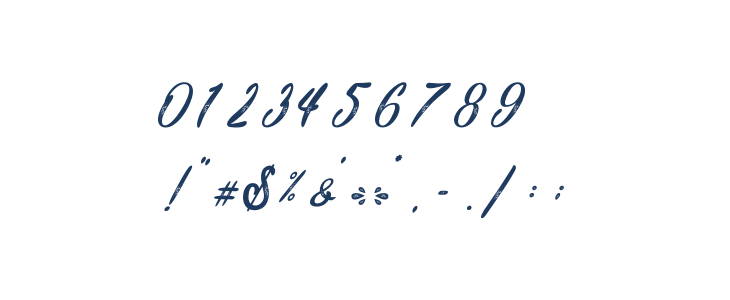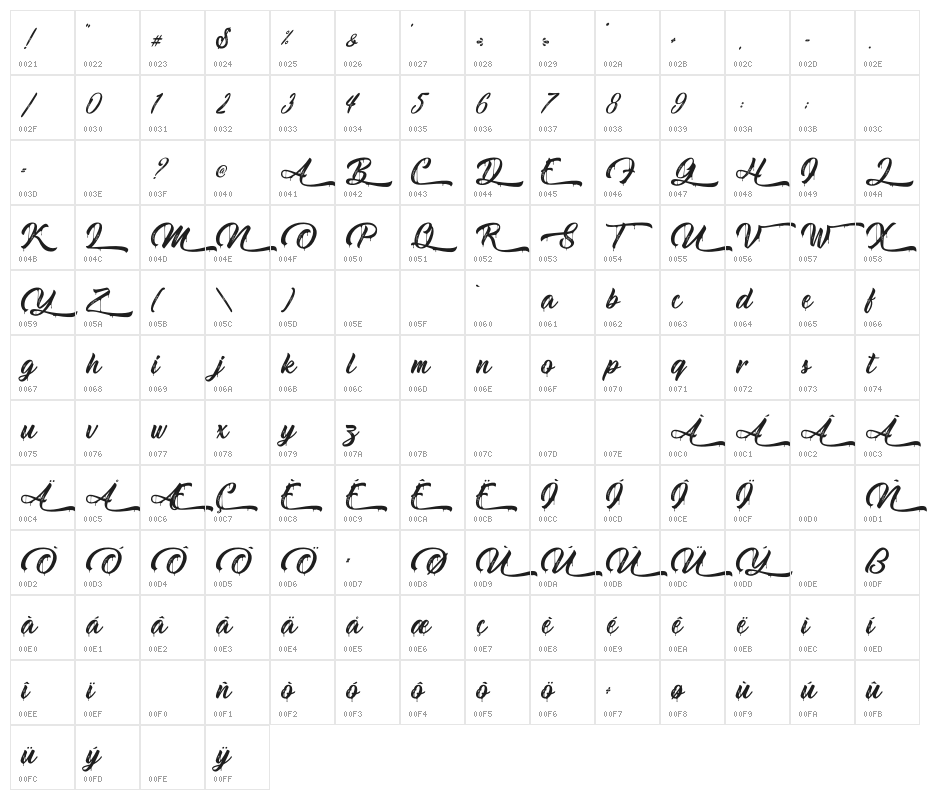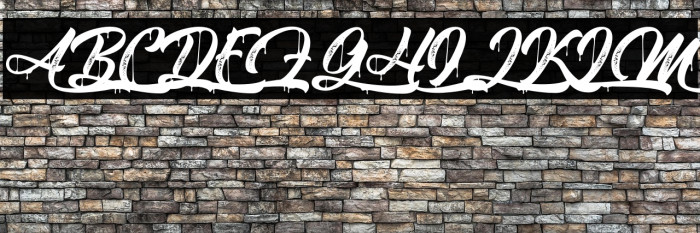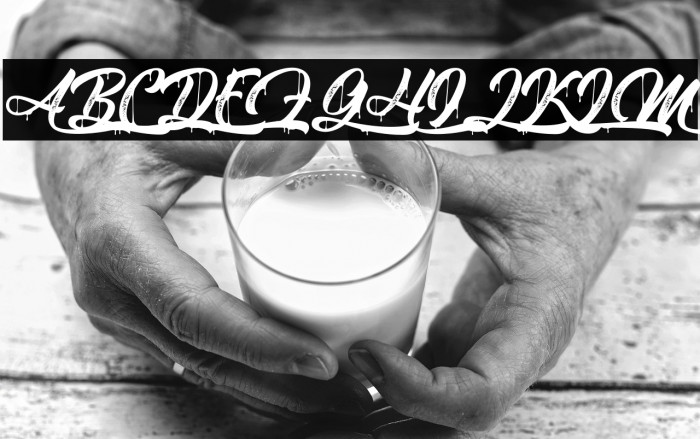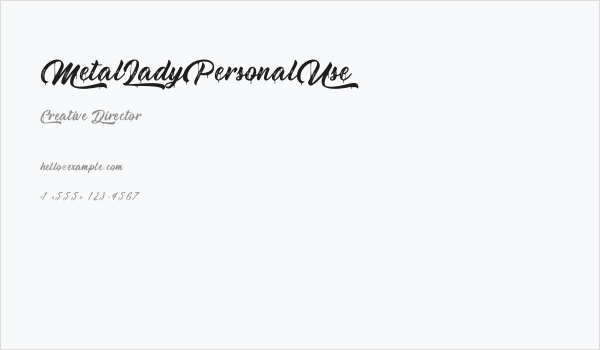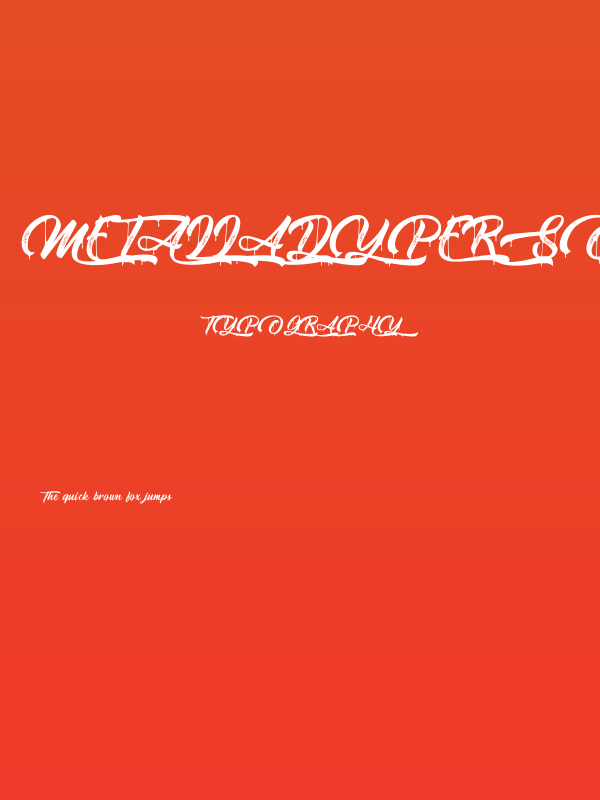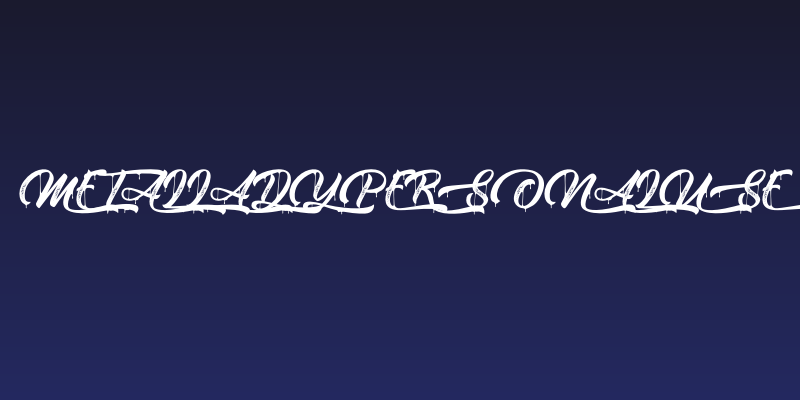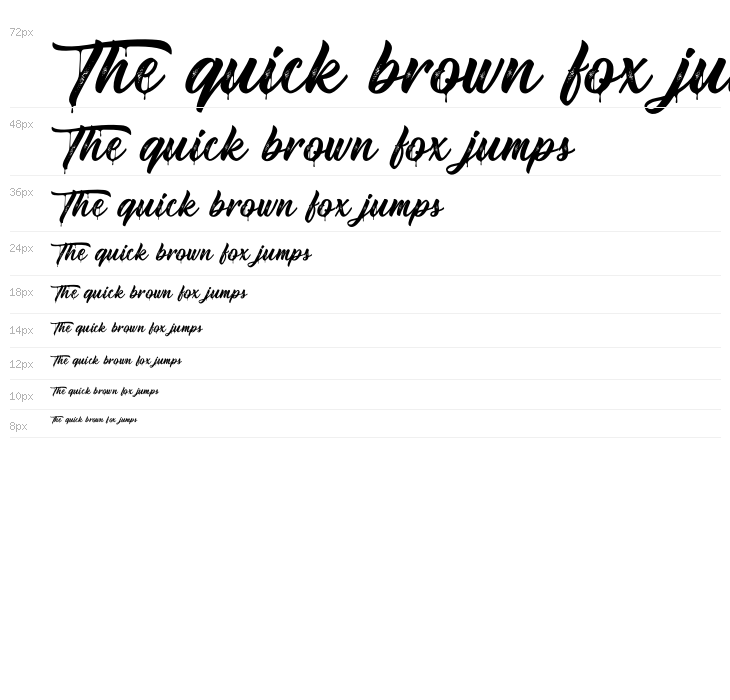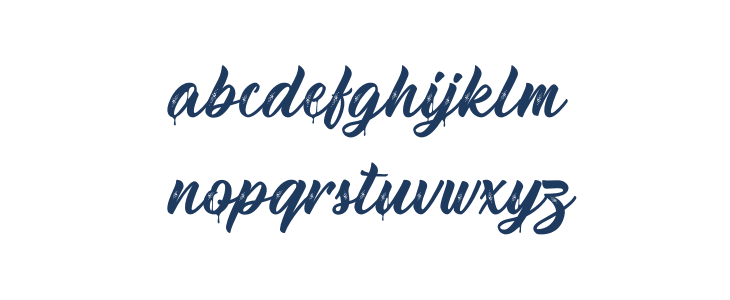
MetalLadyPersonalUse Font
MetalLadyPersonalUse Description
This font features a bold, decorative script style with a distinct grunge effect, characterized by splatters and irregularities that give it a raw, edgy appearance. The uppercase letters are ornate and flowing, while the lowercase letters maintain a consistent cursive style. The numerals and special characters are designed to match the overall aesthetic, adding a cohesive look to any text. The font's unique style makes it stand out, ideal for projects that require a strong visual impact.